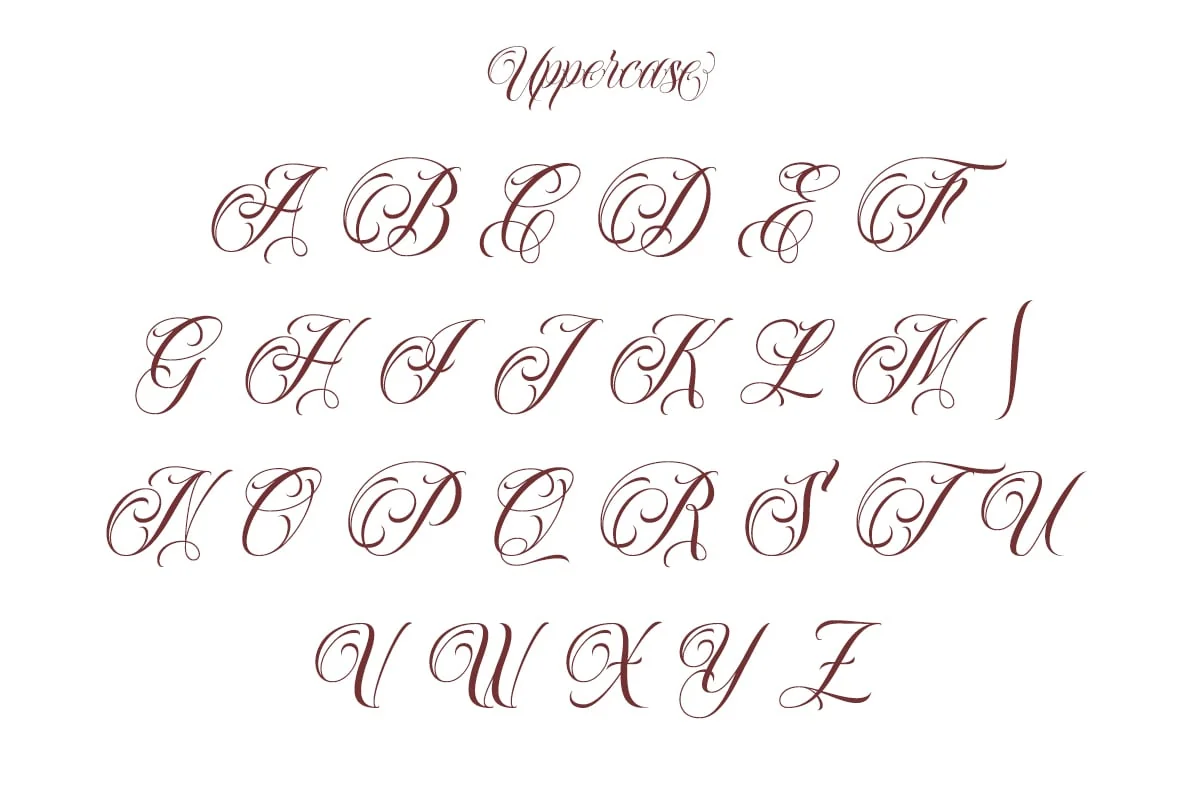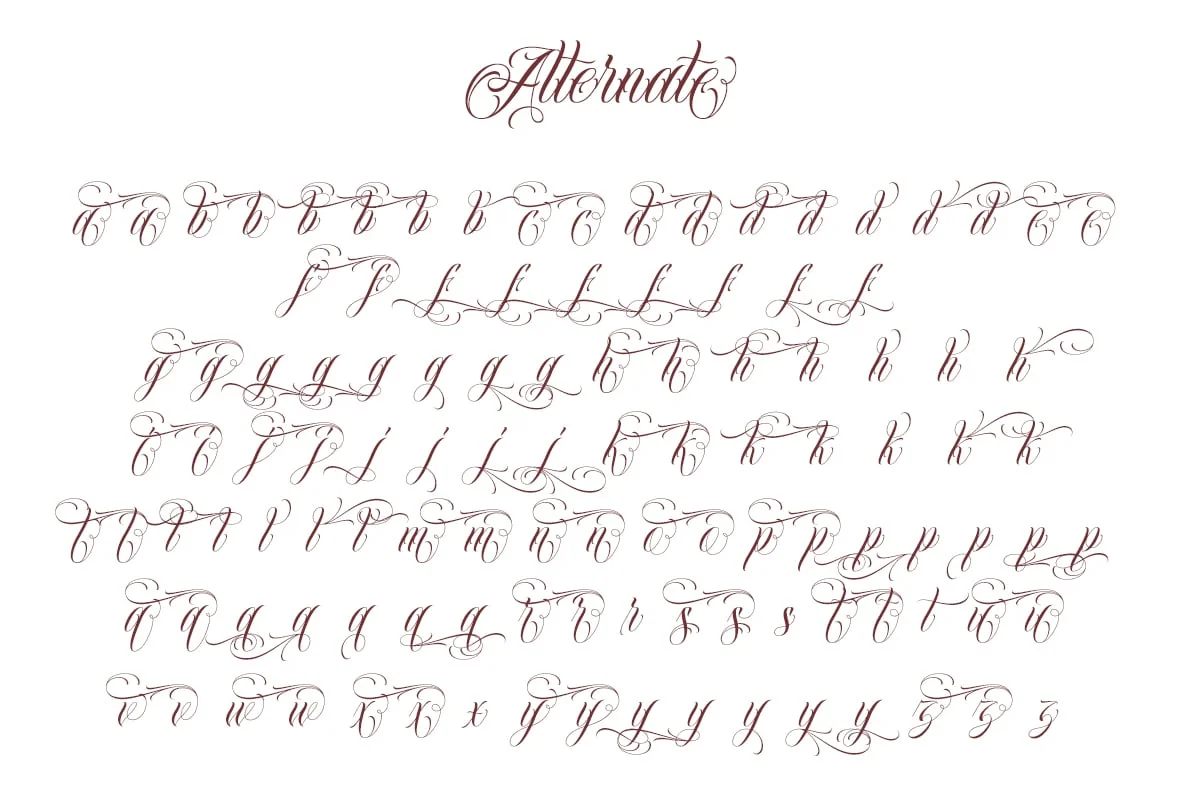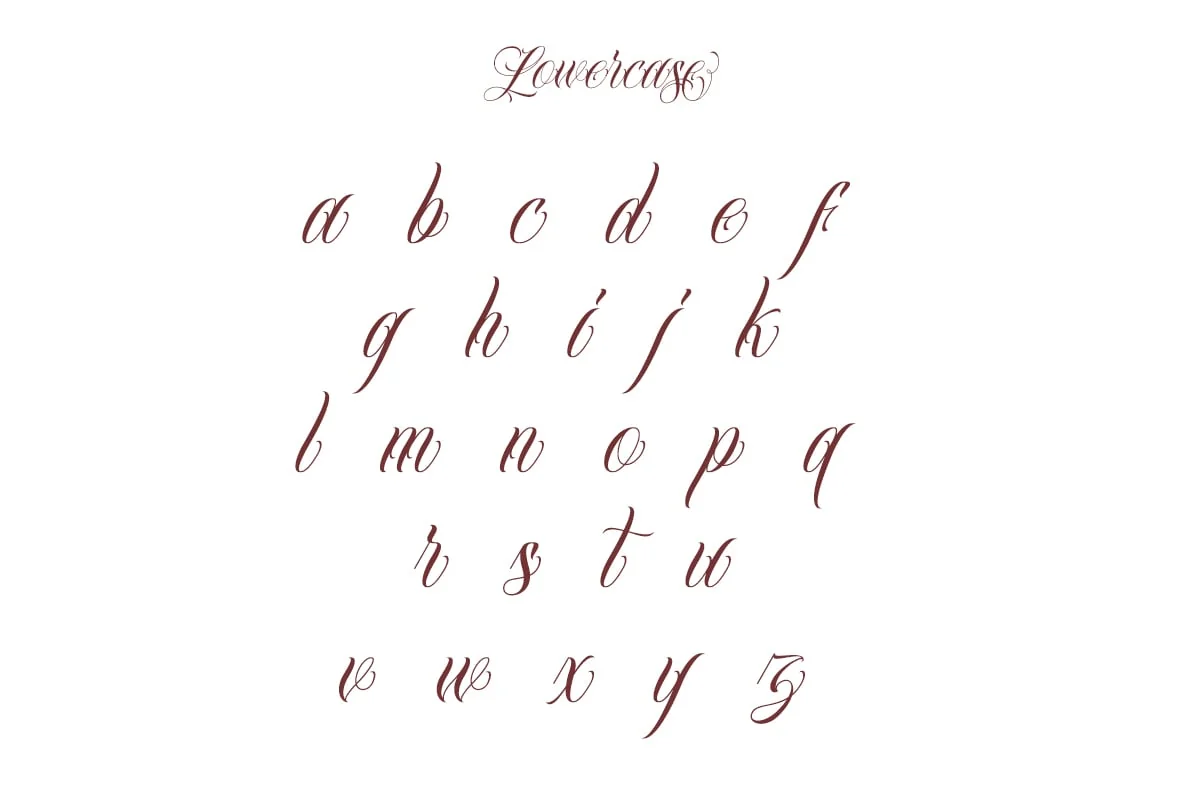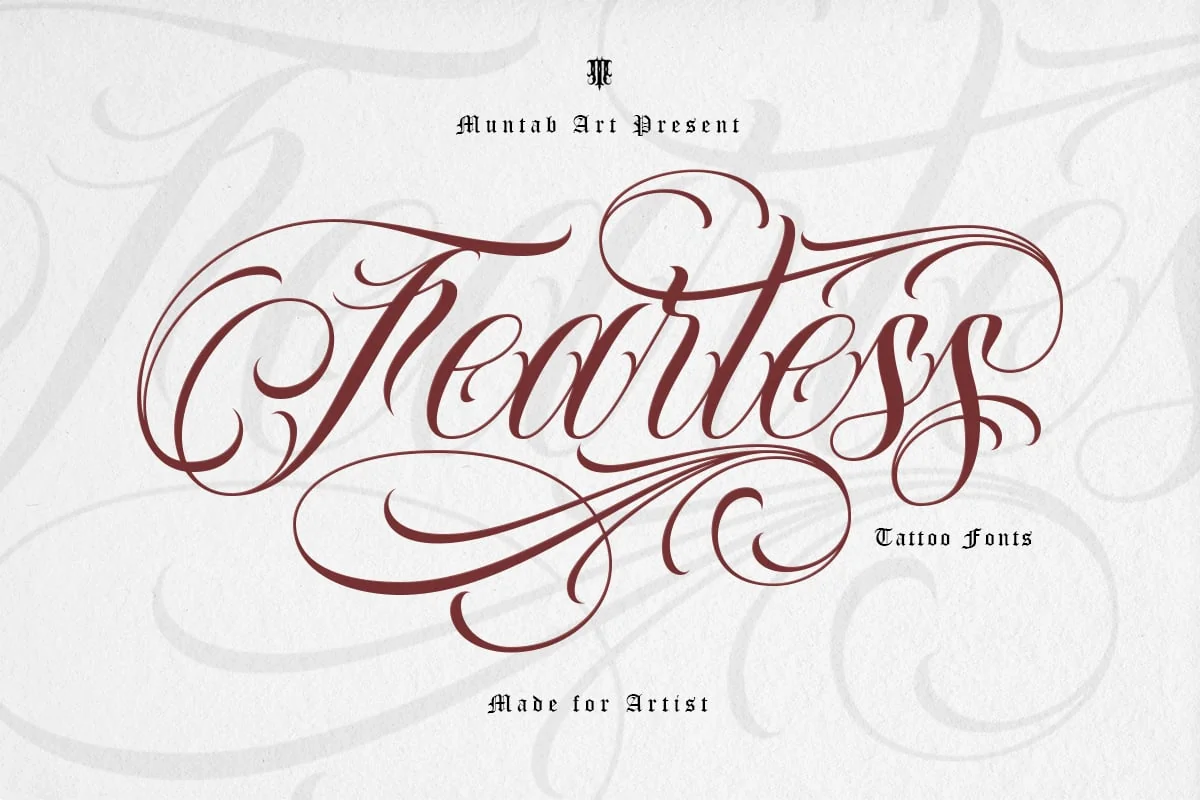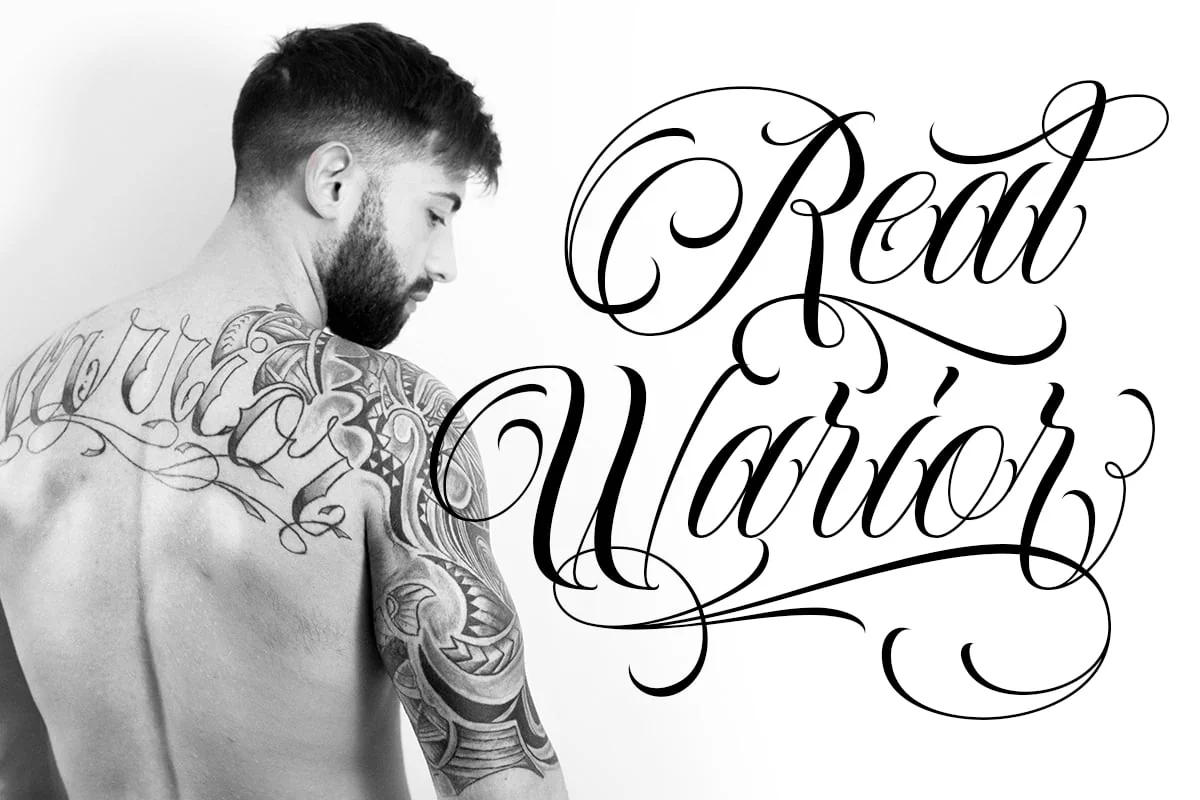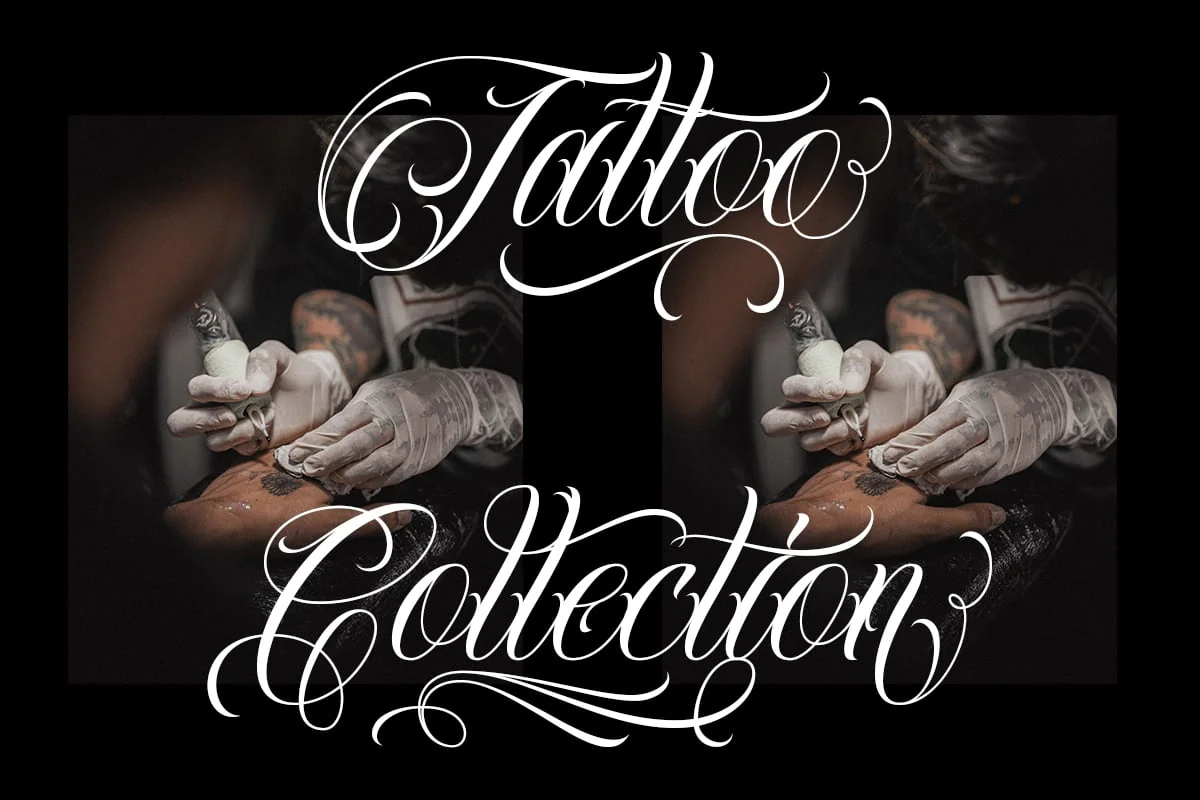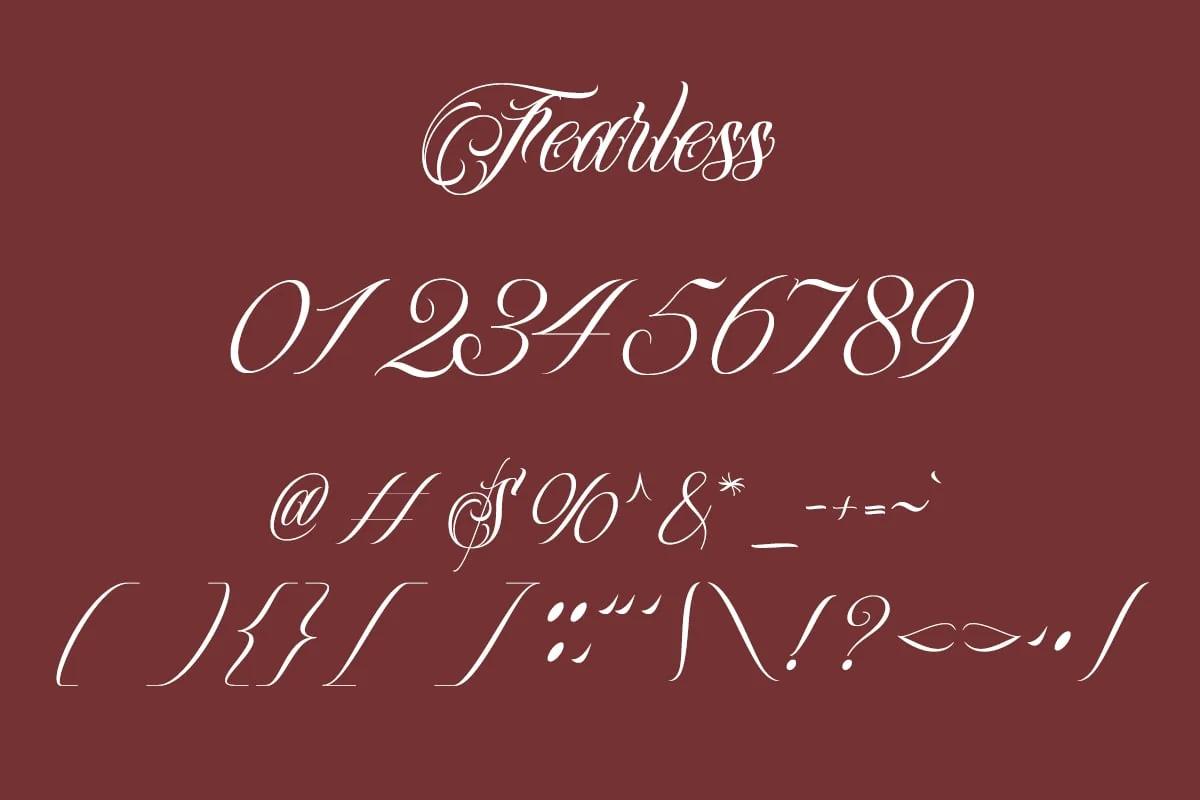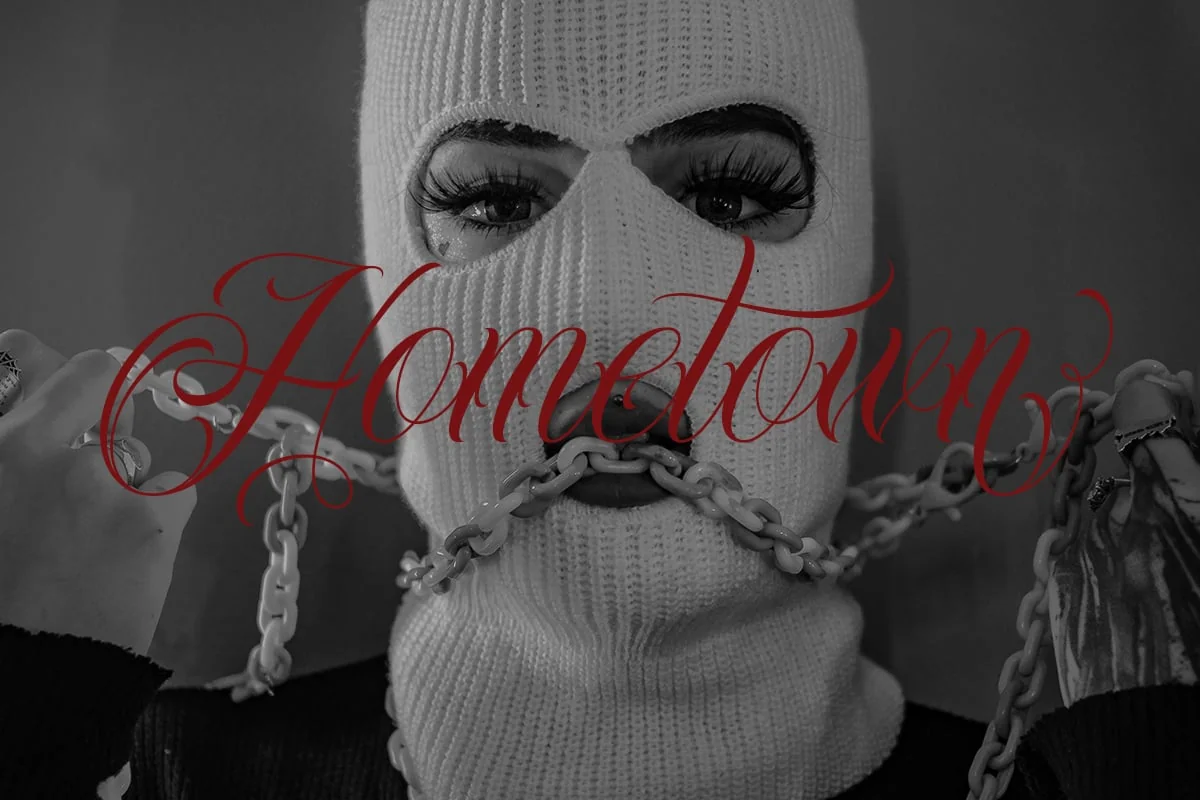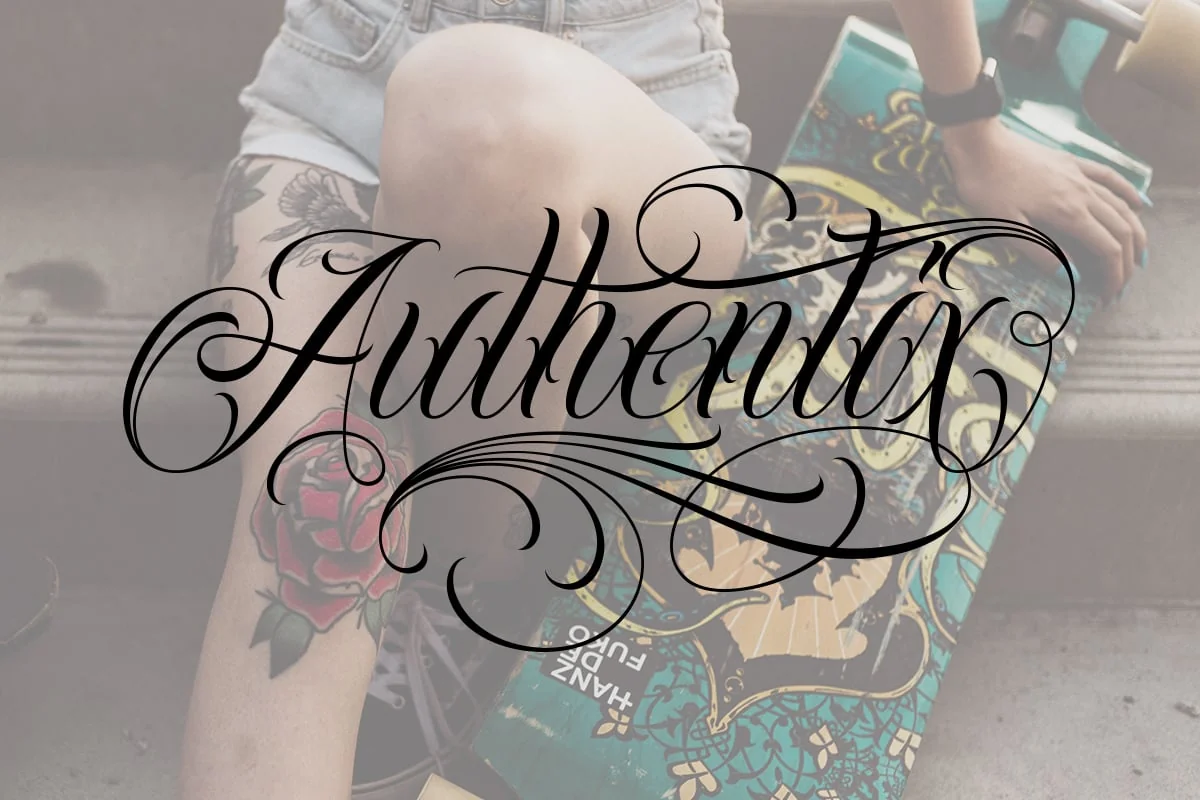
Fearless | Tattoo Font
Introducing of our new product the name Fearless fonts. Bandito includes uppercase and lowercase letters, numerals, a large range of punctuation and ligatures. All lowercase letters include ending swashes and alternative font.